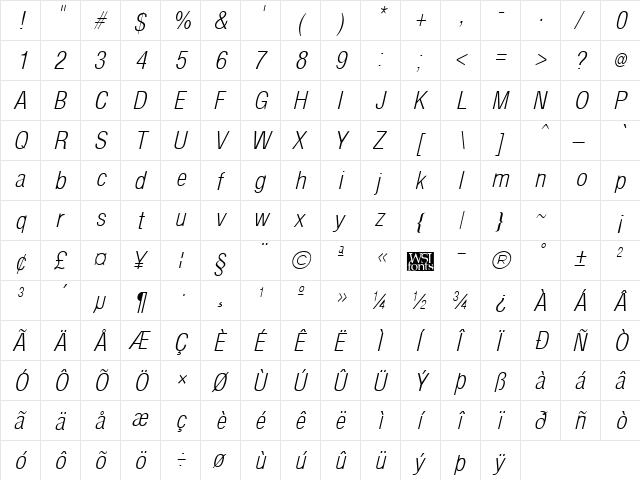
ArenaCondensedLight Italic Font Preview
Design Context for ArenaCondensedLight Typeface
ArenaCondensedLight takes a measured approach to typography — its balanced proportions and neutral character make it a reliable workhorse for both digital and print work. Its italic angle brings a sense of urgency and motion to the letterforms. Its slender proportions lend an understated elegance to any composition. The condensed width makes it efficient for tight spaces without sacrificing legibility.
Pro Tip: Try ArenaCondensedLight for annotation and caption copy alongside an upright companion — the contrast in angle creates a dynamic but ordered typographic system.